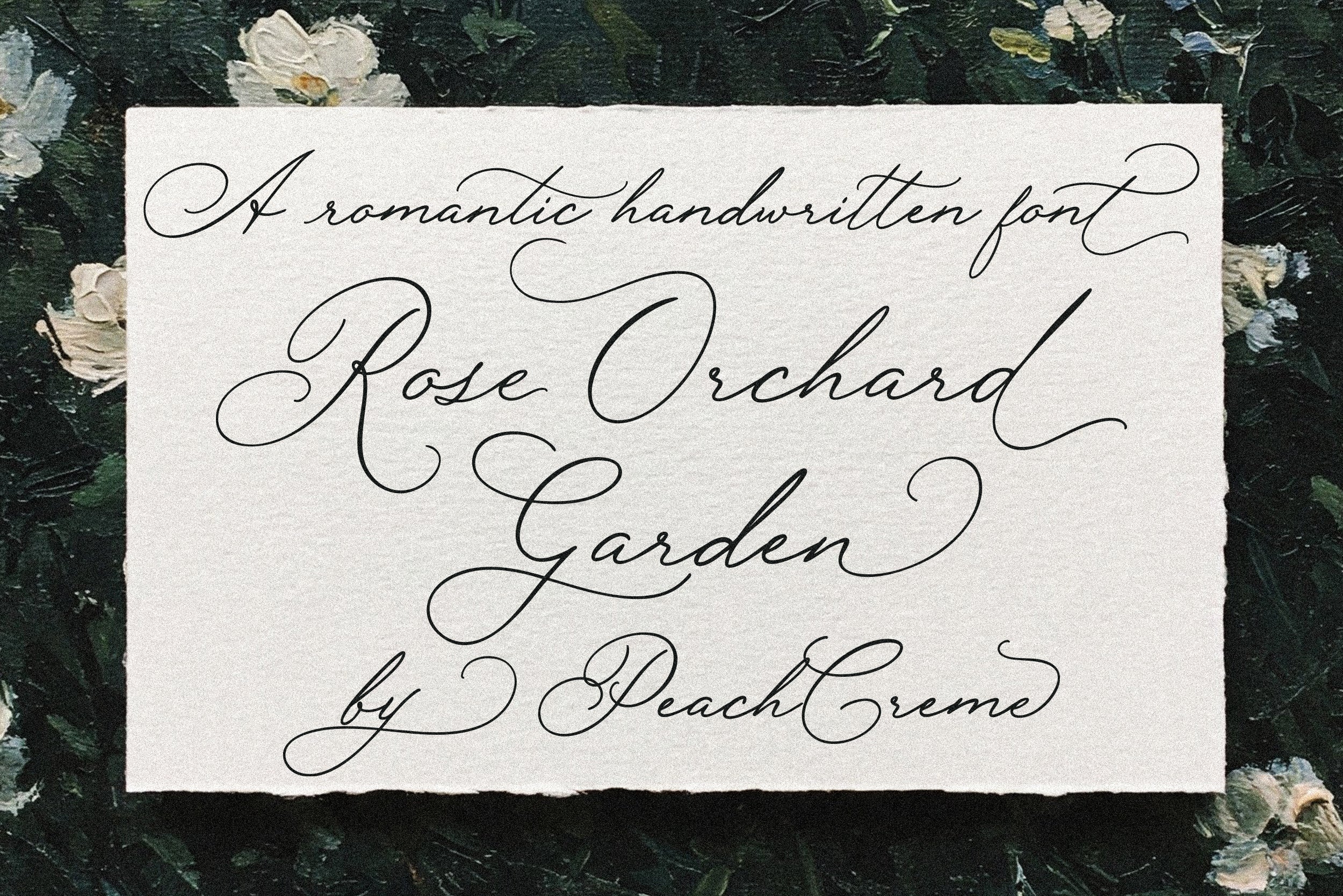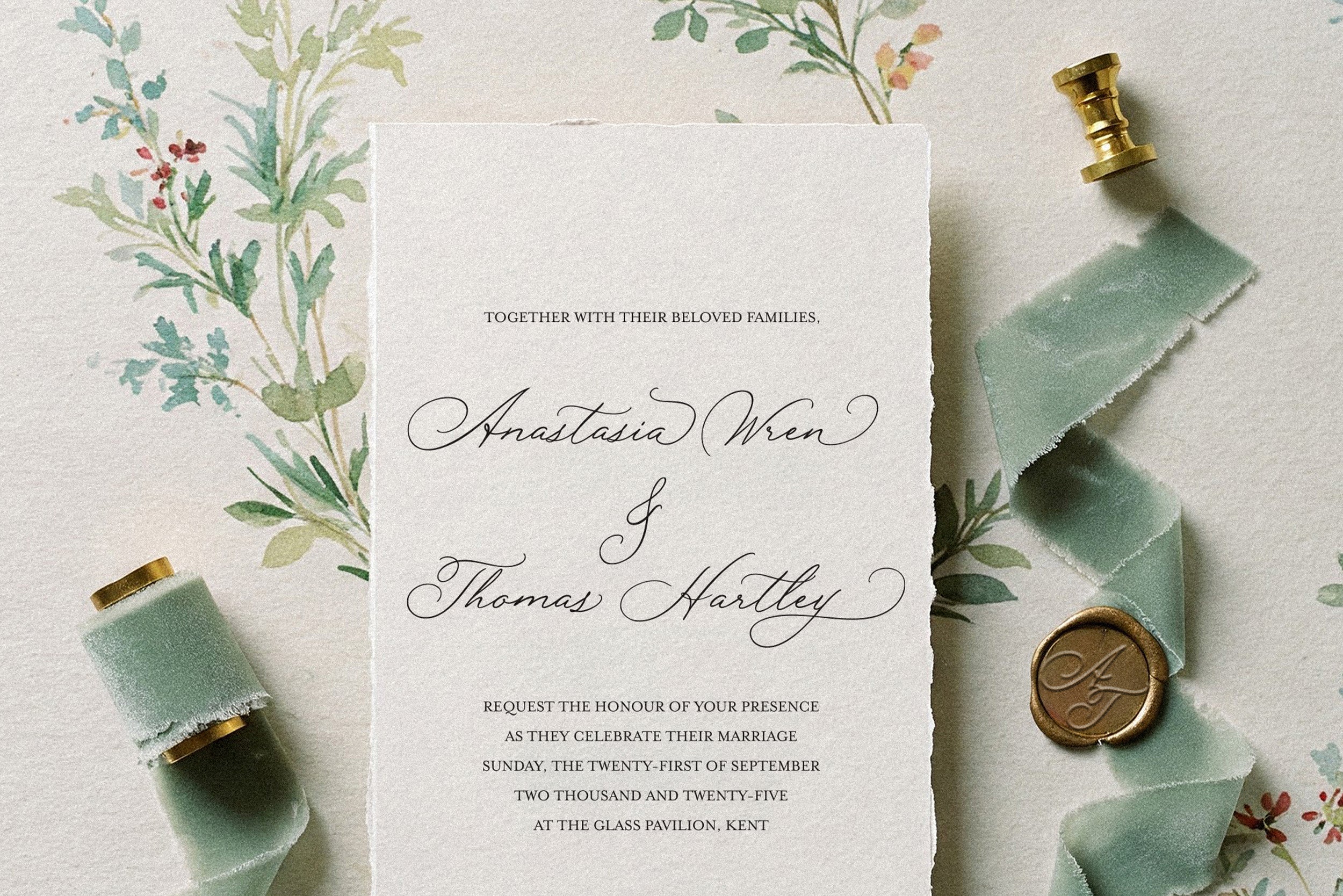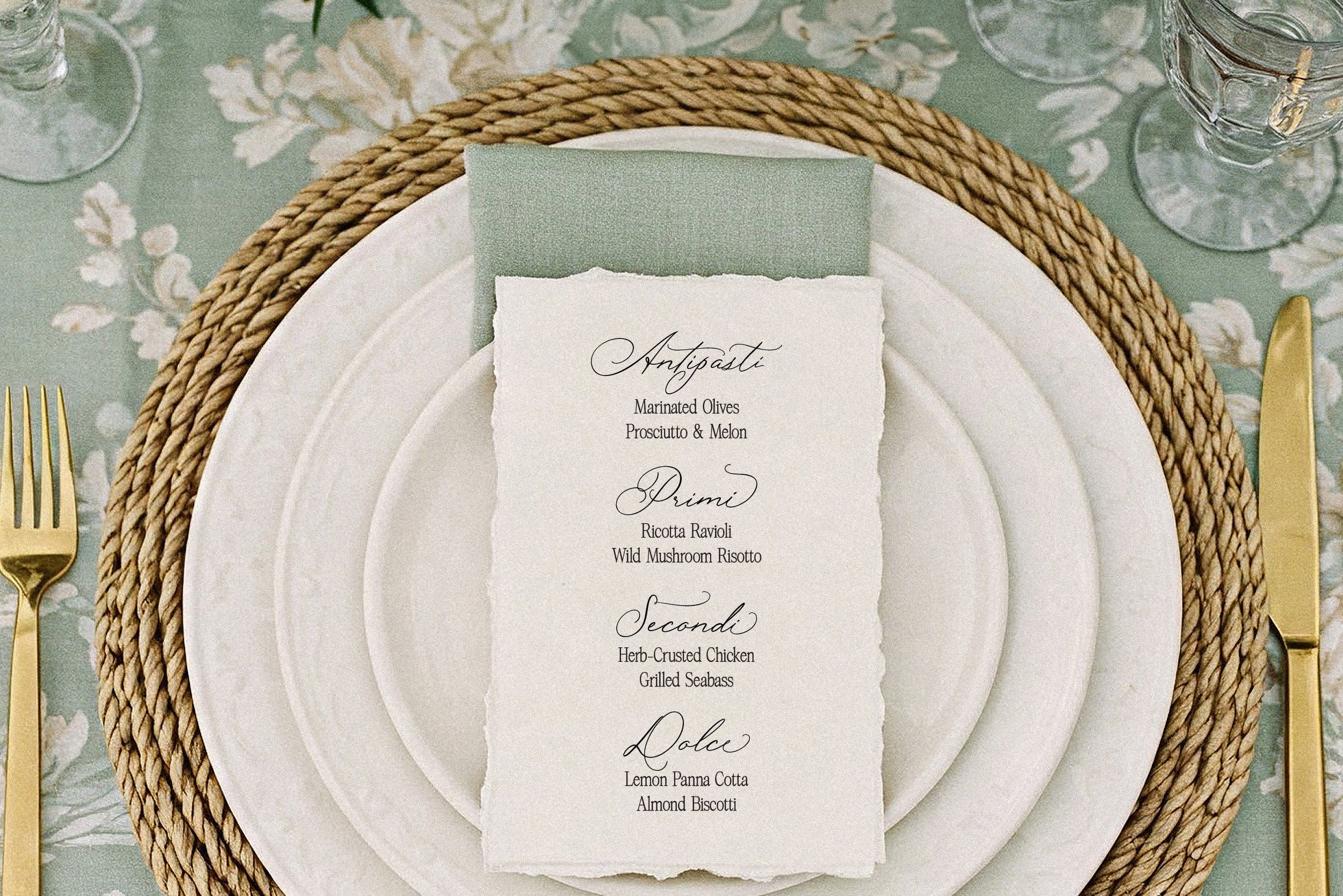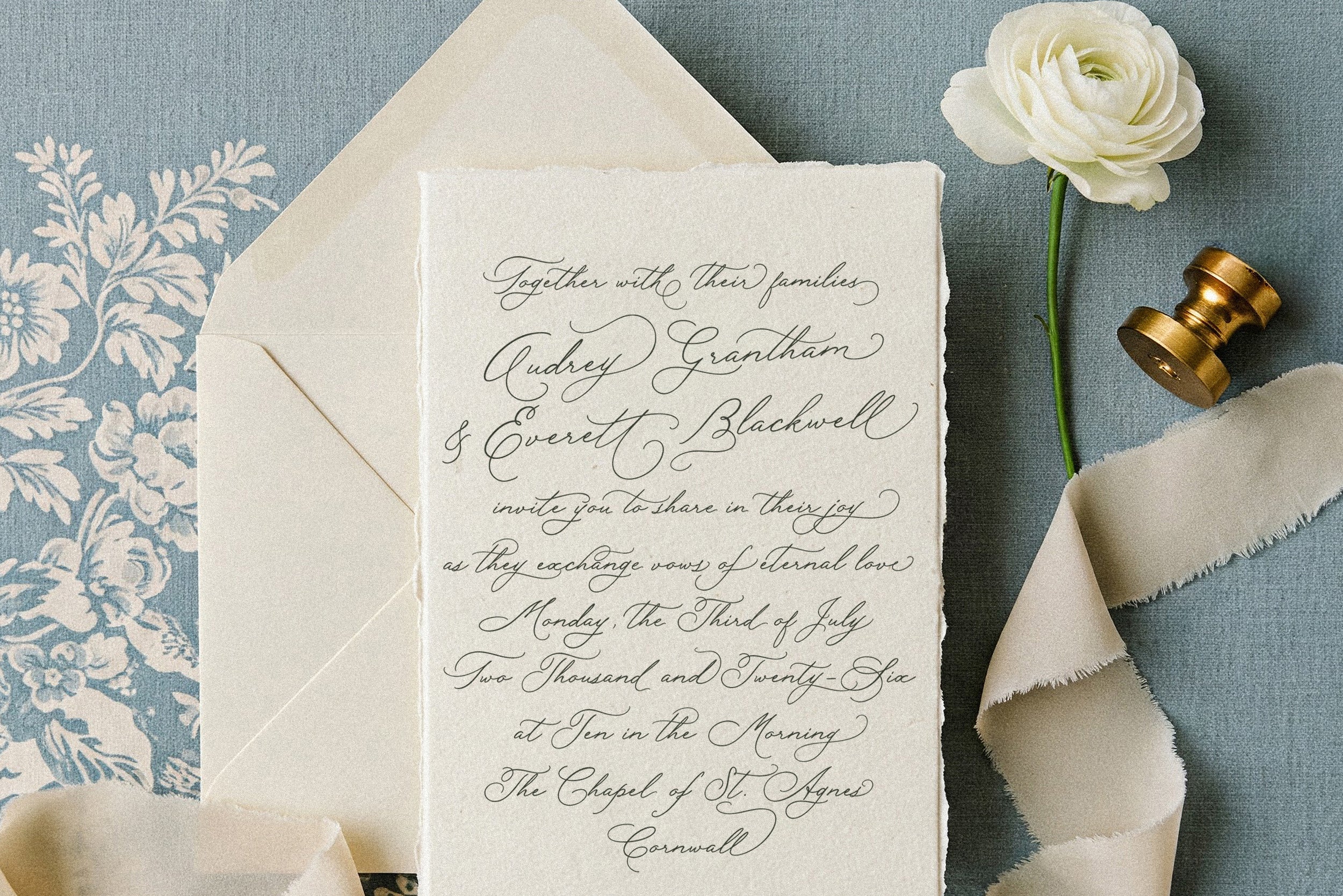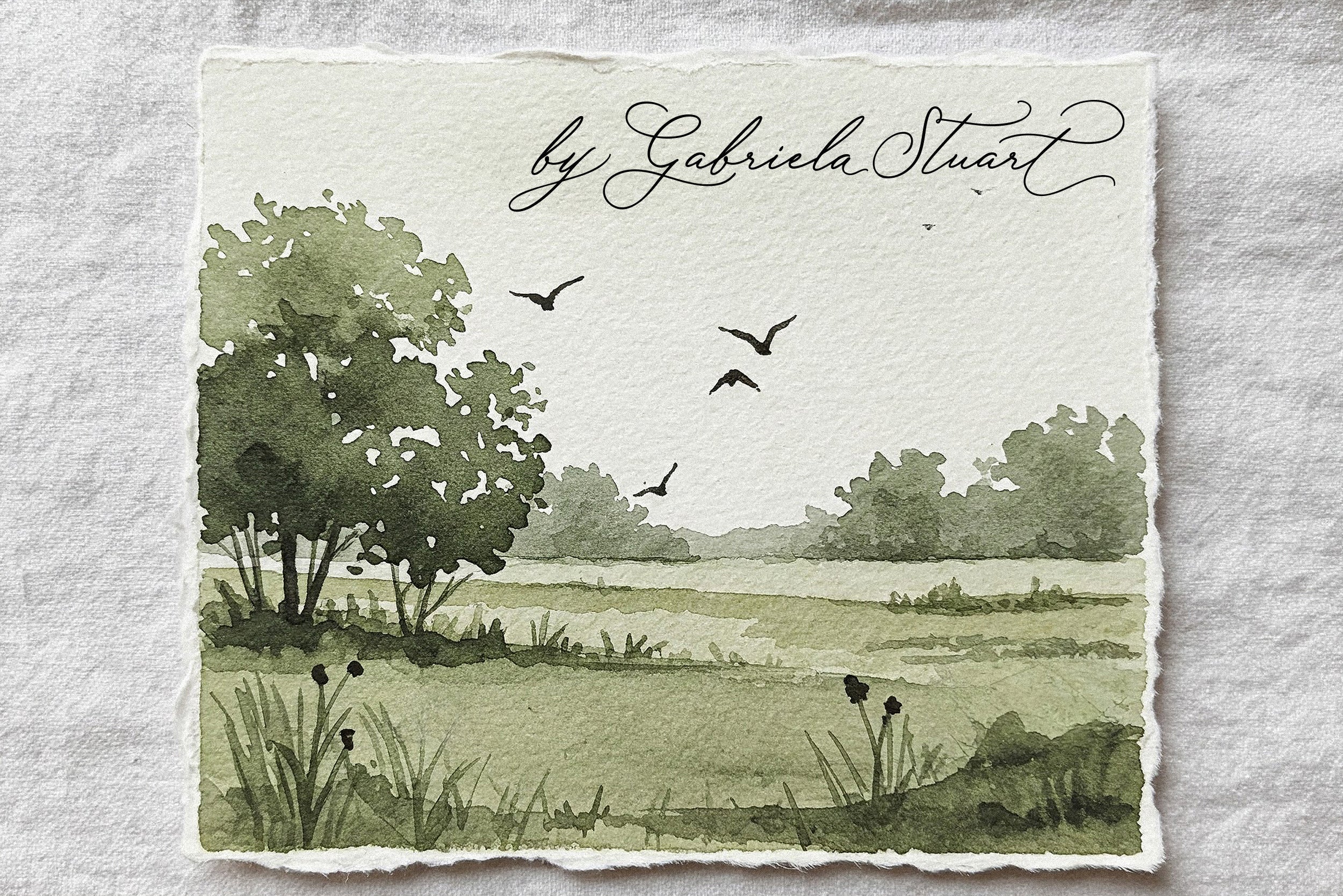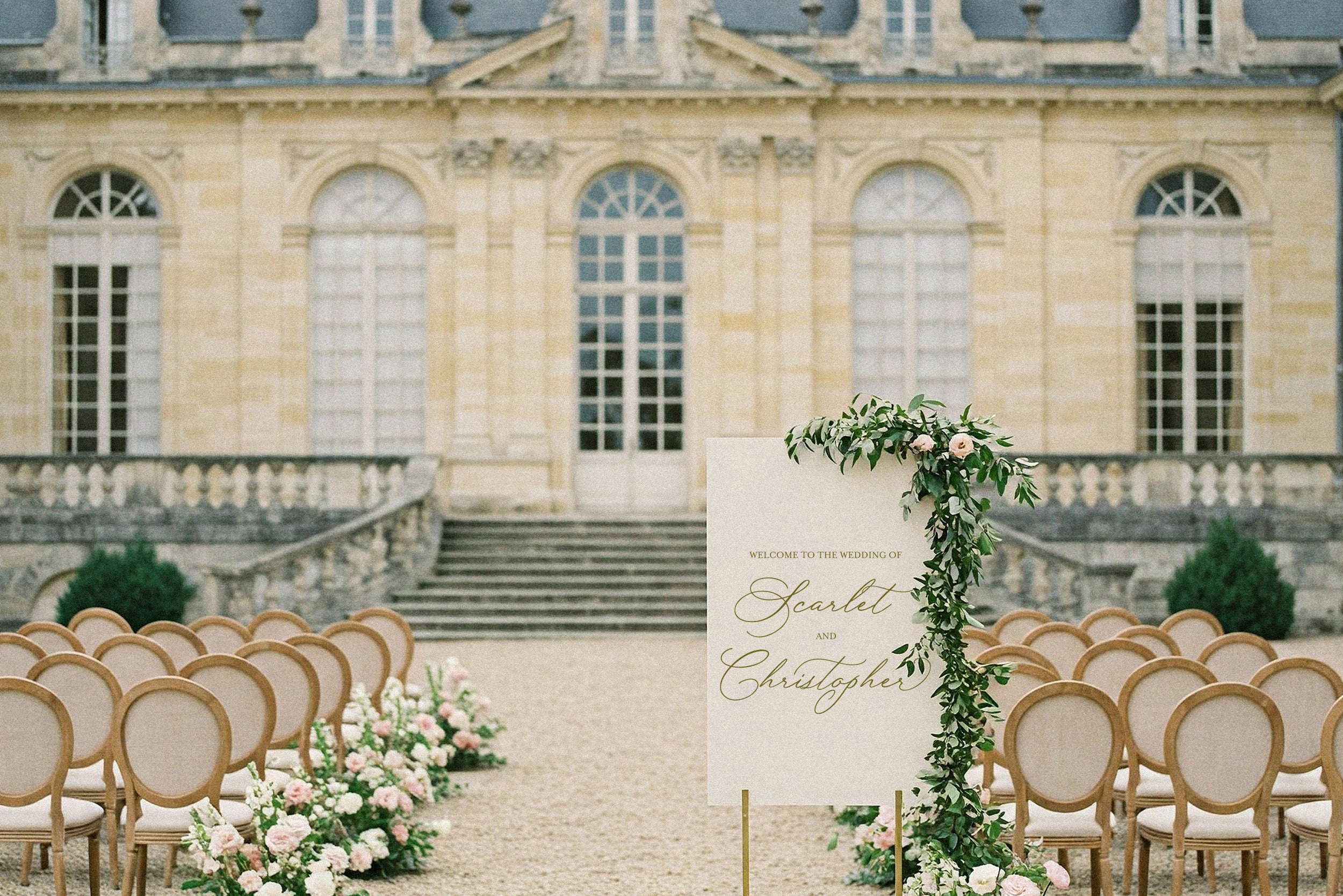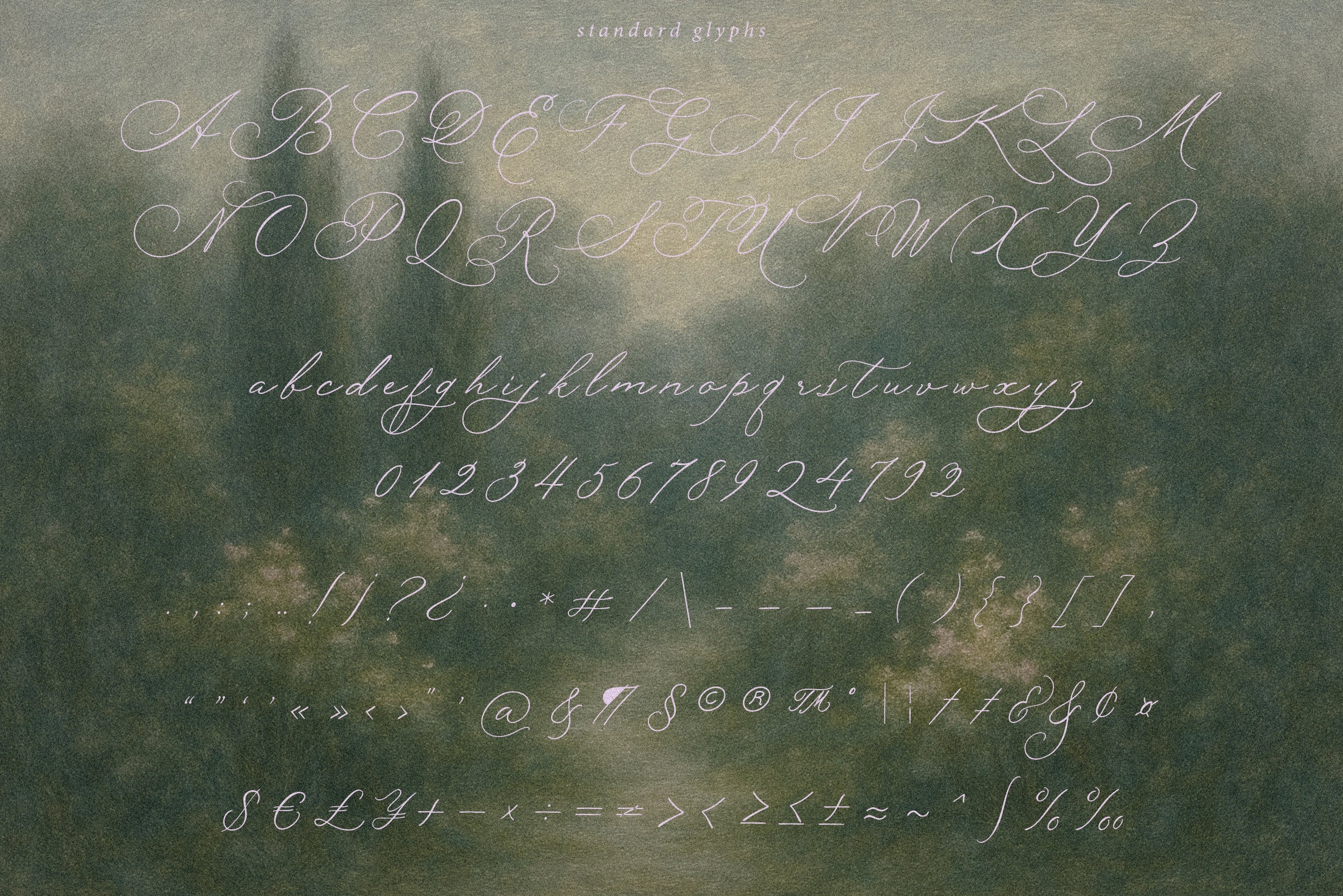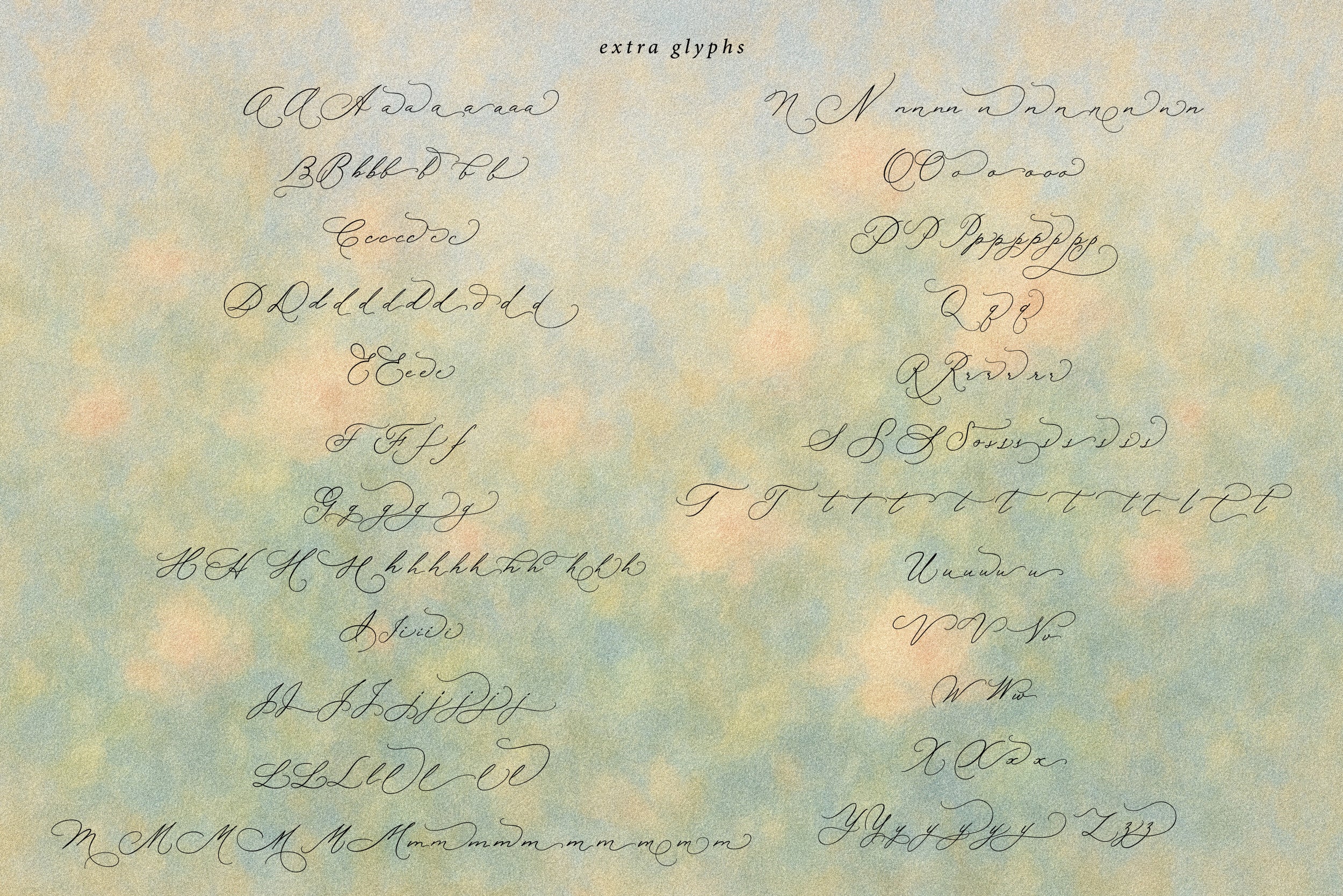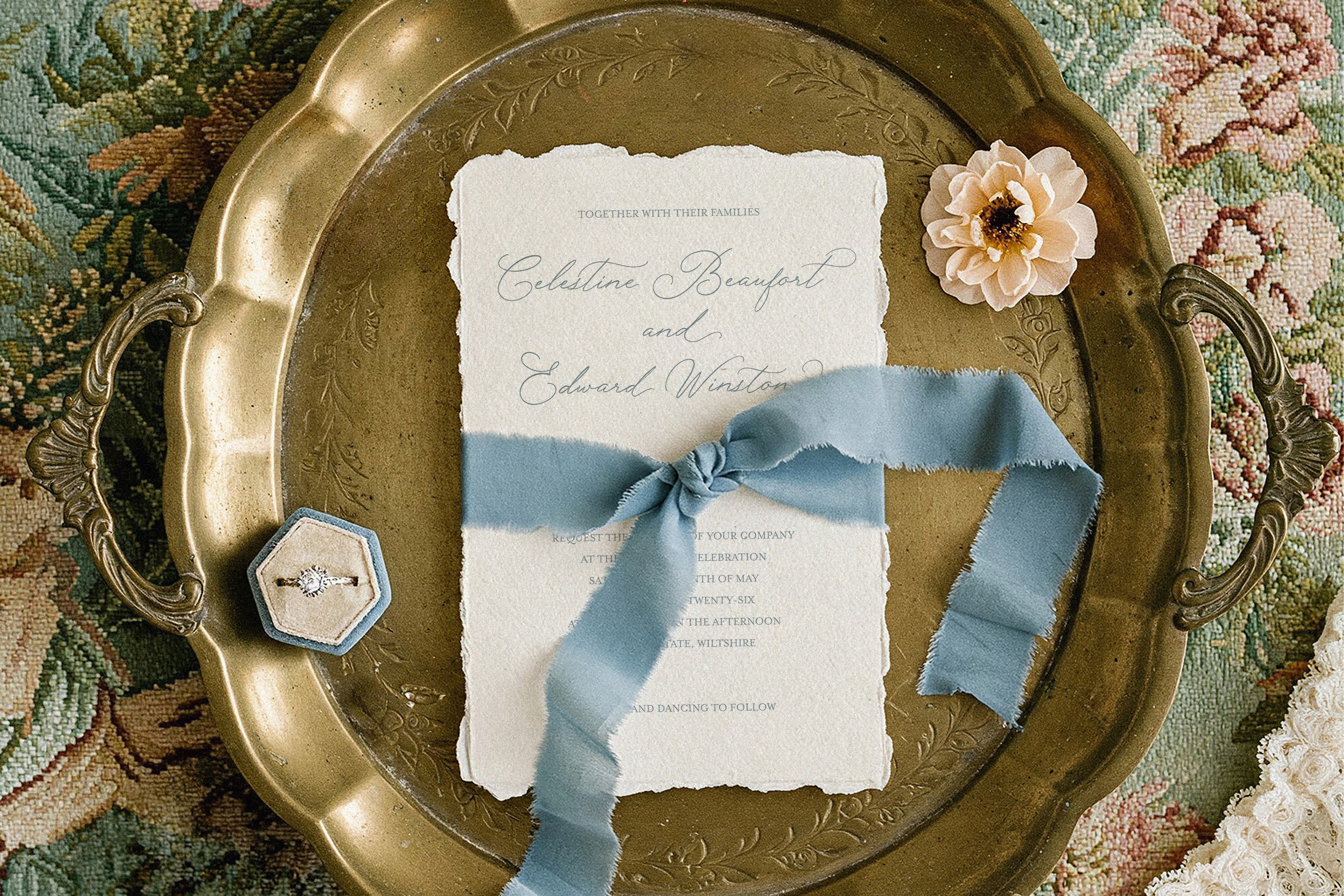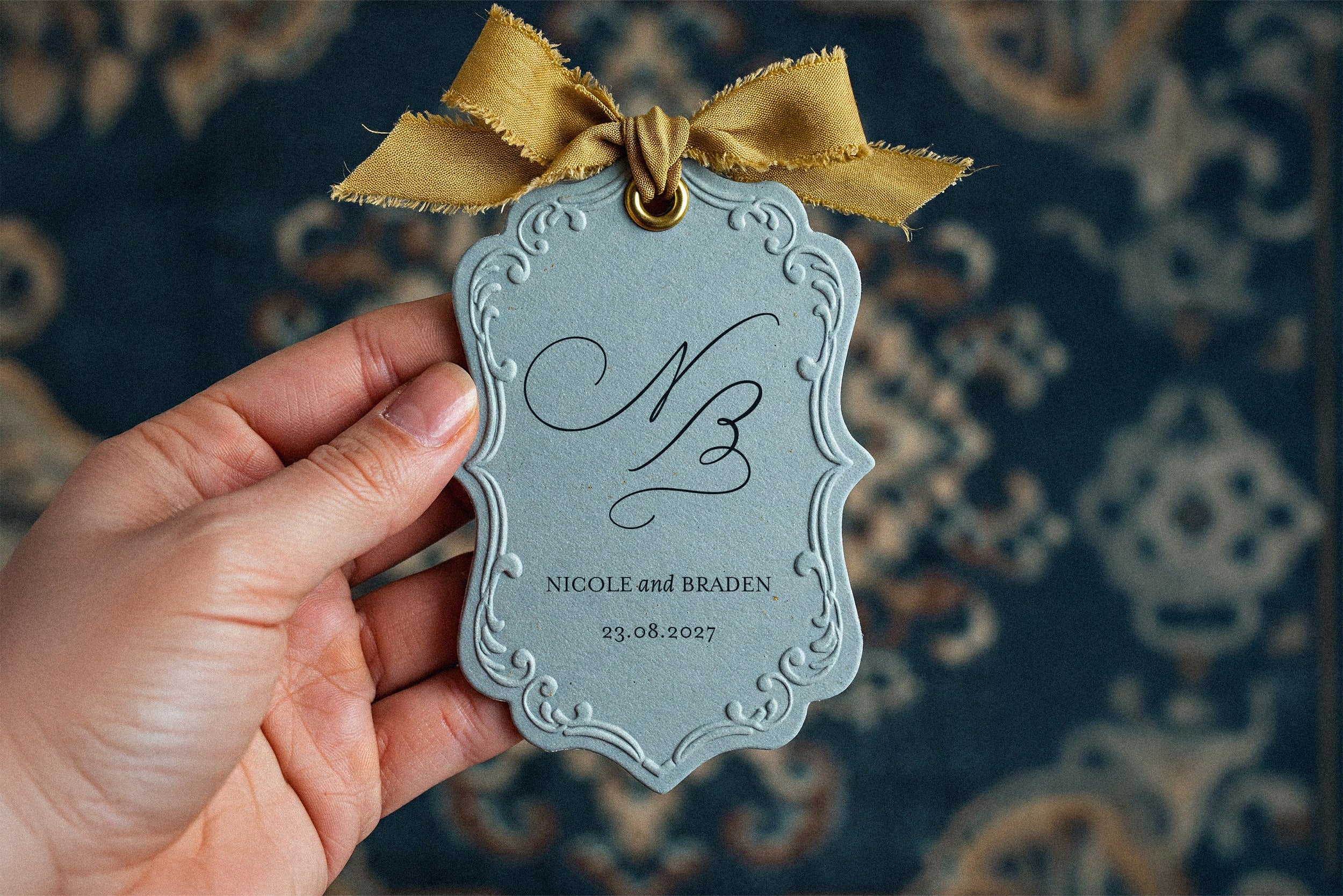
Rose Orchard Garden // Romantic Font
Rose Orchard Garden is a handwritten script font with a romantic, classic feel. Inspired by traditional calligraphy, it features long, flowing curves and gentle irregularities that give it a personal, handwritten charm; not overly polished, but intentionally delicate and expressive.
The font includes at least one alternate for both uppercase and lowercase letters. These alternates are especially helpful when designing wedding invitations, greeting cards, headings, or personal stationery, allowing for a more varied and natural look in your text.
A slightly bolder version is also included. The difference is subtle, but it can help improve legibility at smaller sizes or add a touch more contrast when needed.